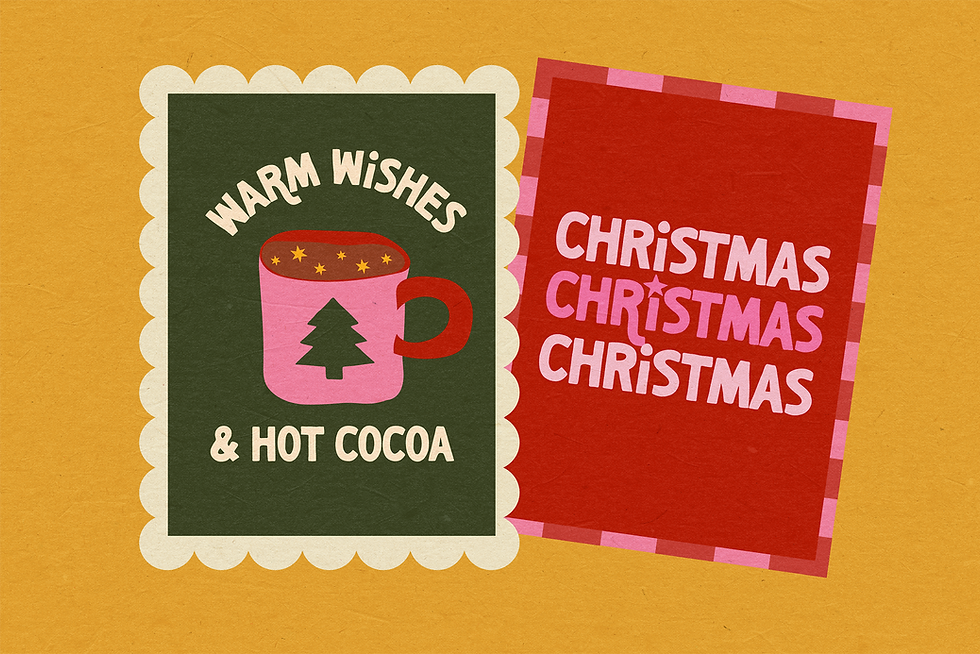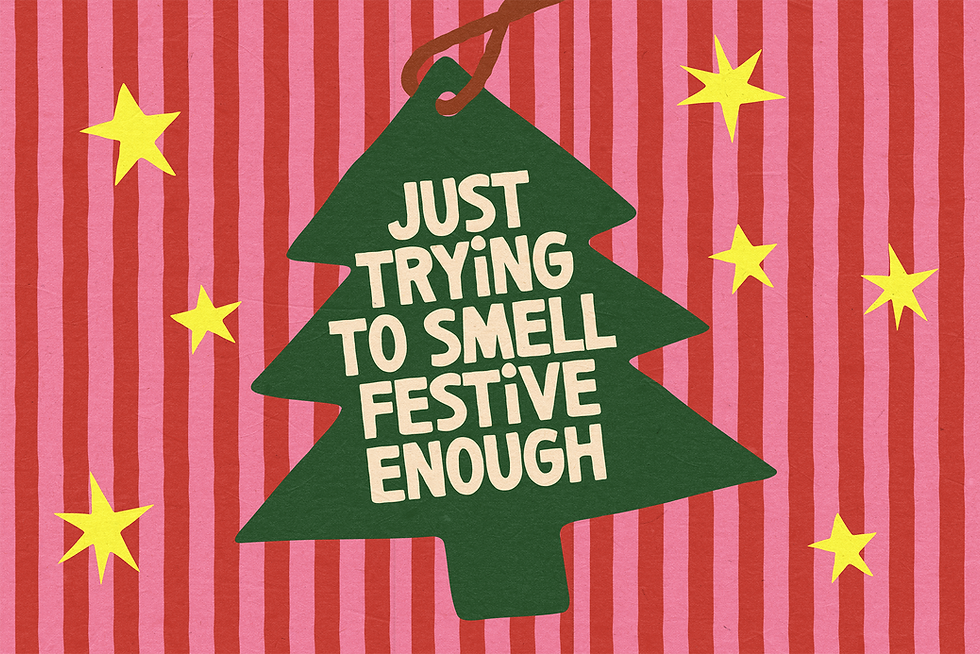
PEPPERMINT PORCH
Peppermint Porch is a simple hand-drawn sans font that captures the cozy, heartwarming spirit of Christmas. ✨
Its soft, slightly uneven lines bring that handmade charm we all love. Simple yet full of personality, perfect for adding a magical festive touch to your designs.
Use Peppermint Porch for holiday cards, packaging, labels, invitations, social media posts, or any project that calls for sweetness and warmth.
✨ Sweet and simple like Christmas should be
Note: “i” alternate
Use the 3 symbols included to make cozy compositions.
• Left Curly Bracket { – star 1
• Right Curly Bracket } – star 2
• Logical not symbol ¬ – i (alternate)